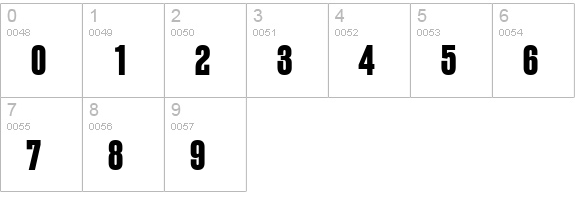
PFFusionSansPro-Heavy Font Details
PFFusionSansPro-Heavy is a heavy, high-impact variant in the PFFusionSansPro typeface family \xE2\x80\x94 well suited to high-impact headlines, posters, and display advertising.
PFFusionSansPro-Heavy font is a bold and impactful typeface that commands attention with its strong presence. Its heavy weight makes it perfect for headlines, titles, and other design elements that require a bold statement. With a modern and sleek design, PFFusionSansPro-Heavy exudes confidence and sophistication. What makes PFFusionSansPro-Heavy even more appealing is that it is available for free download at FontsMarket.com. This means that designers and creatives can easily access this powerful font without any cost, making it a valuable addition to their font library. Whether you're working on a poster, logo, or branding project, PFFusionSansPro-Heavy is sure to make a bold impact and elevate your design to the next level.